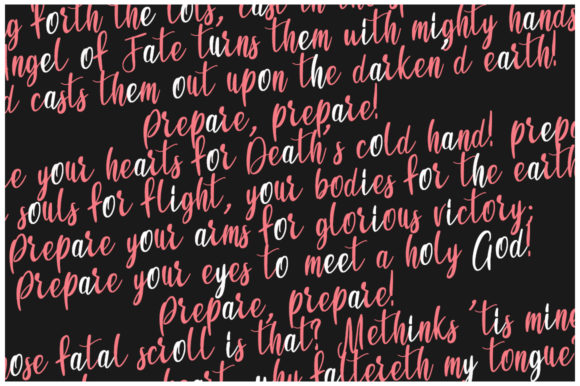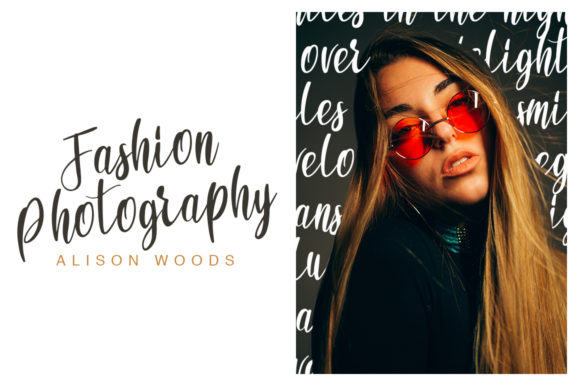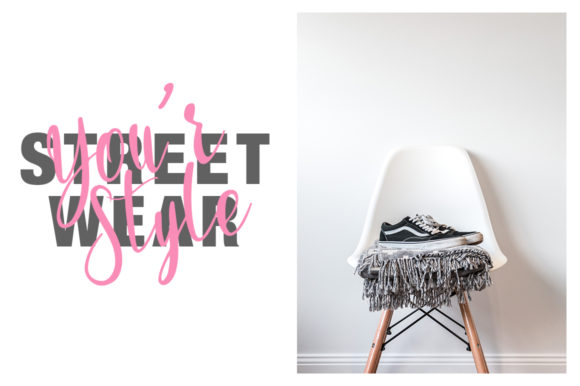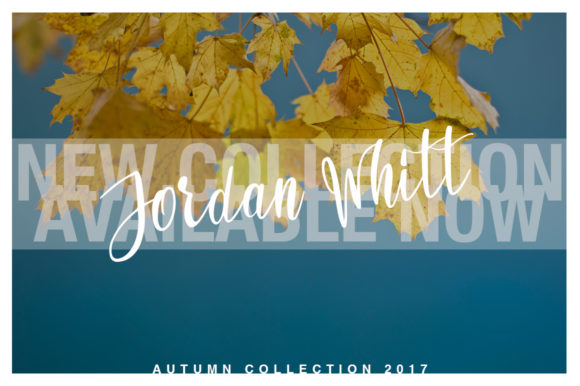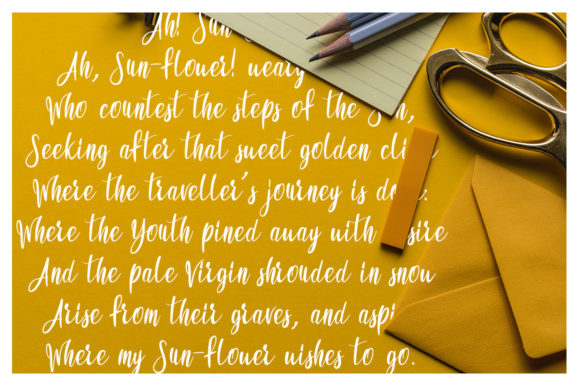
Introduction to Handsome Devil Font Font
Fonts play a crucial role in design, and the Handsome Devil Font font is a typeface that brings both character and versatility to any project. Whether you’re working on a branding project, a website, or a print design, the Handsome Devil Font font offers a unique style that can elevate your work.
Handsome Devil is a fresh new handmade calligraphy font.
Get inspired by its flowing curves .
Key Features of Handsome Devil Font Font
Why Choose Handsome Devil Font Font?
The Handsome Devil Font font is more than just a typeface – it’s a design tool that helps you communicate your message with style and clarity. Its unique character set and versatile design make it suitable for a wide range of applications, from elegant invitations to bold headlines.
With its carefully crafted letterforms and balanced proportions, the Handsome Devil Font font ensures readability and visual appeal across all mediums.
What makes Handsome Devil Font font special?
The Handsome Devil Font font stands out with its unique design, exceptional readability, and versatility across various design applications.